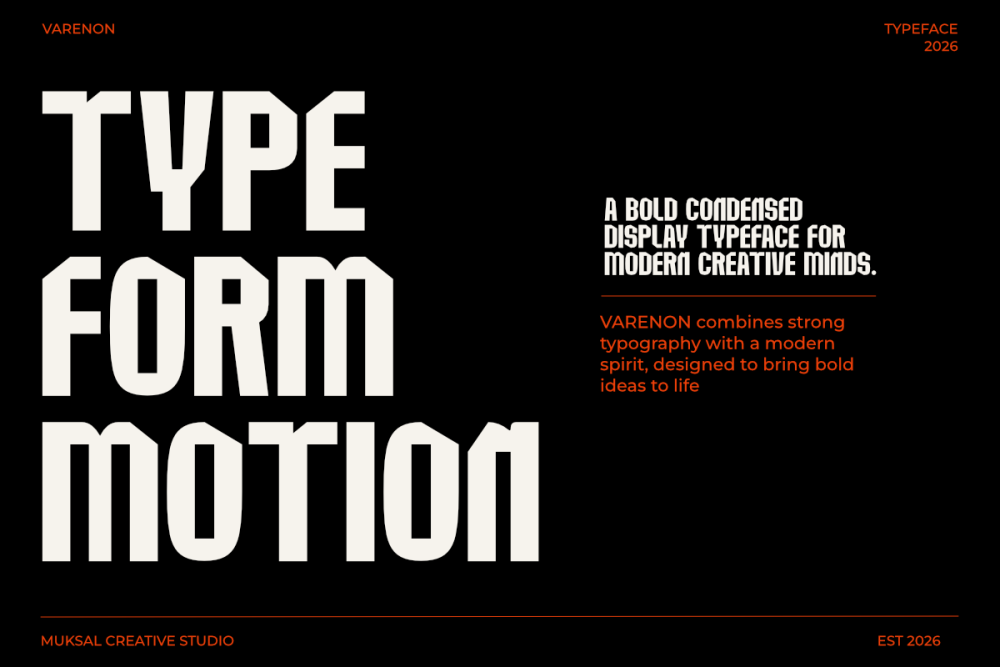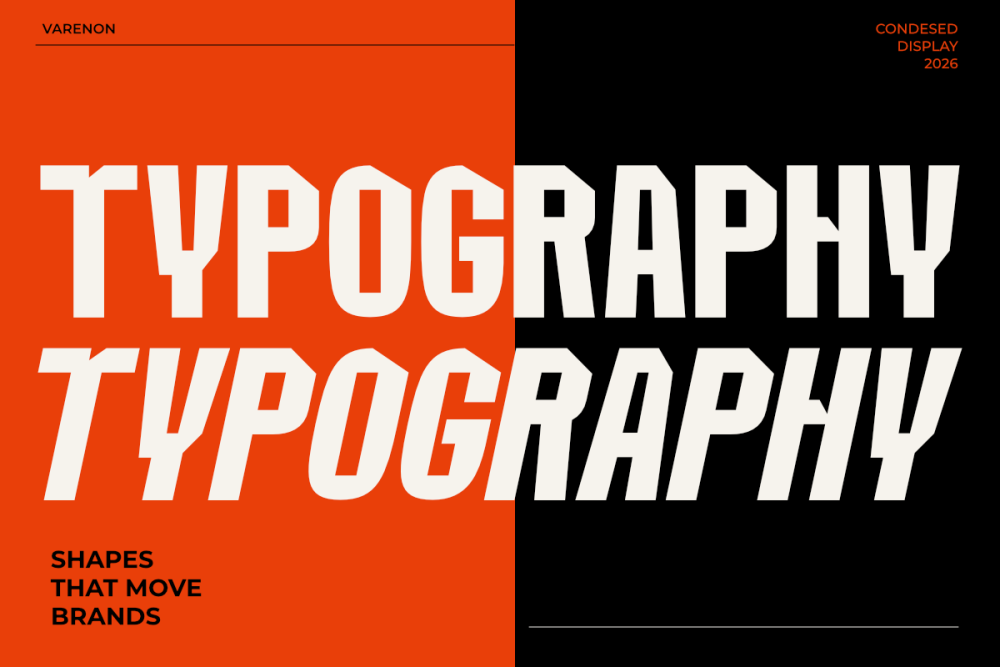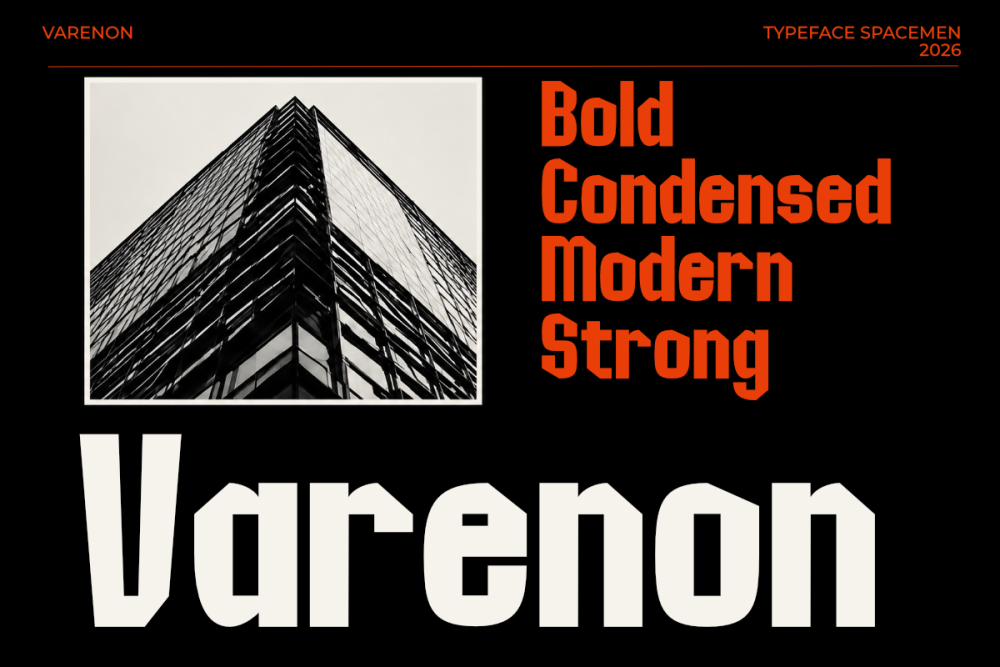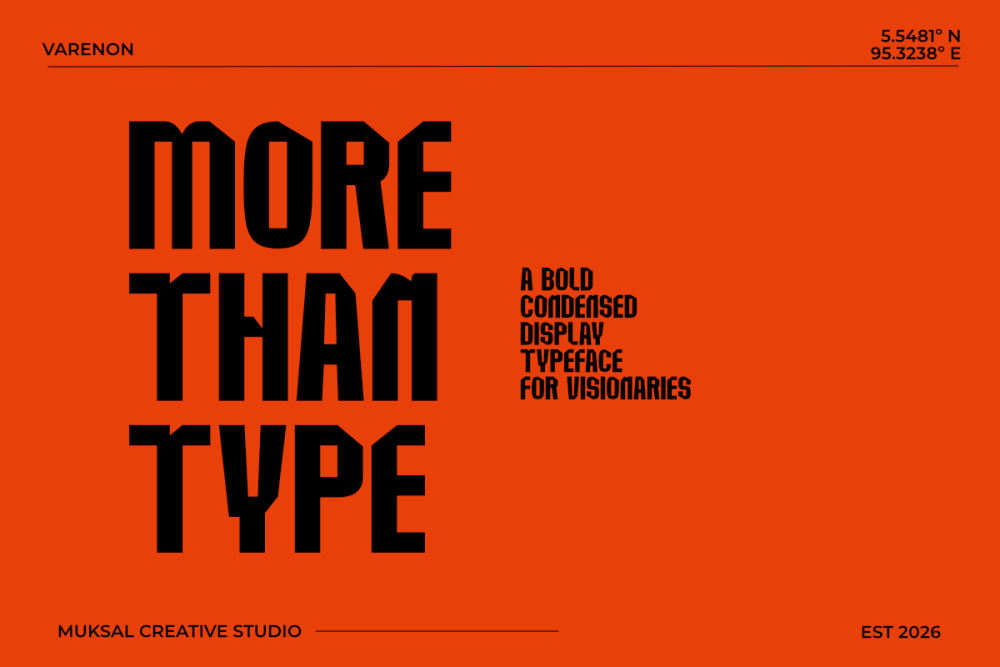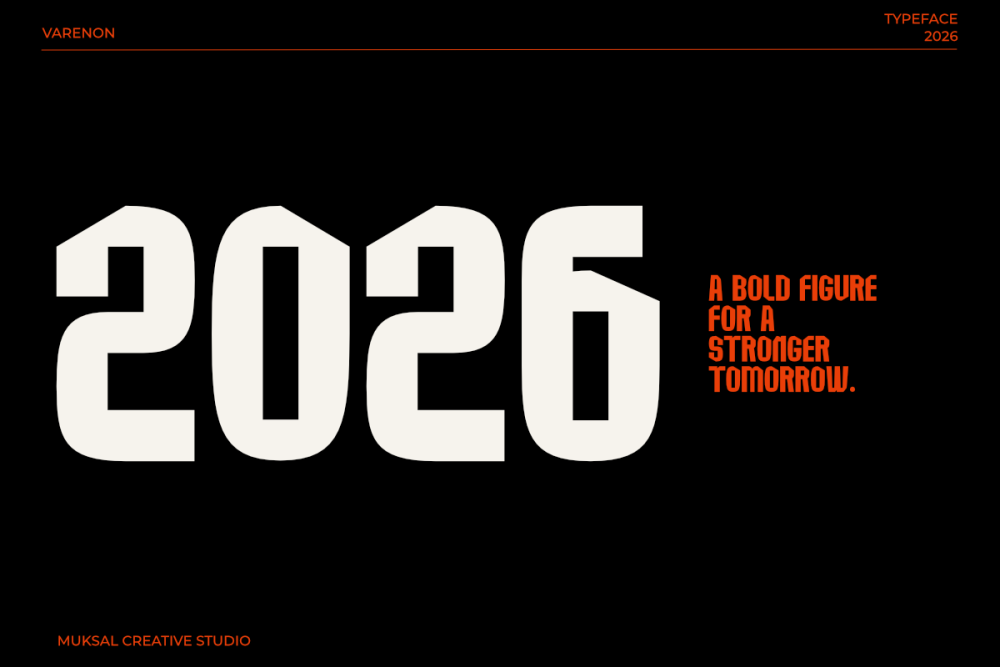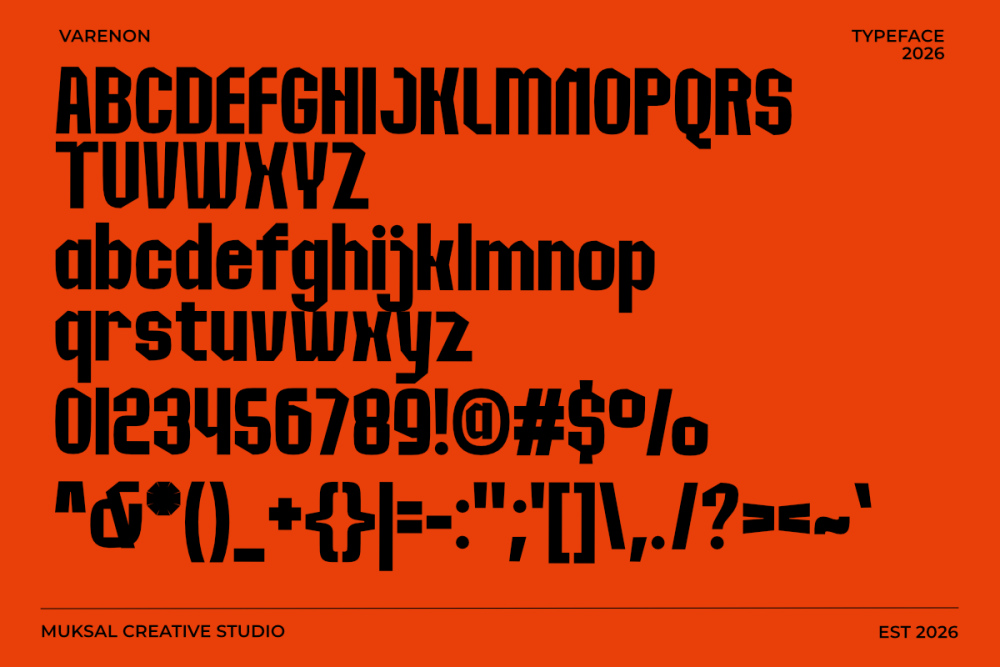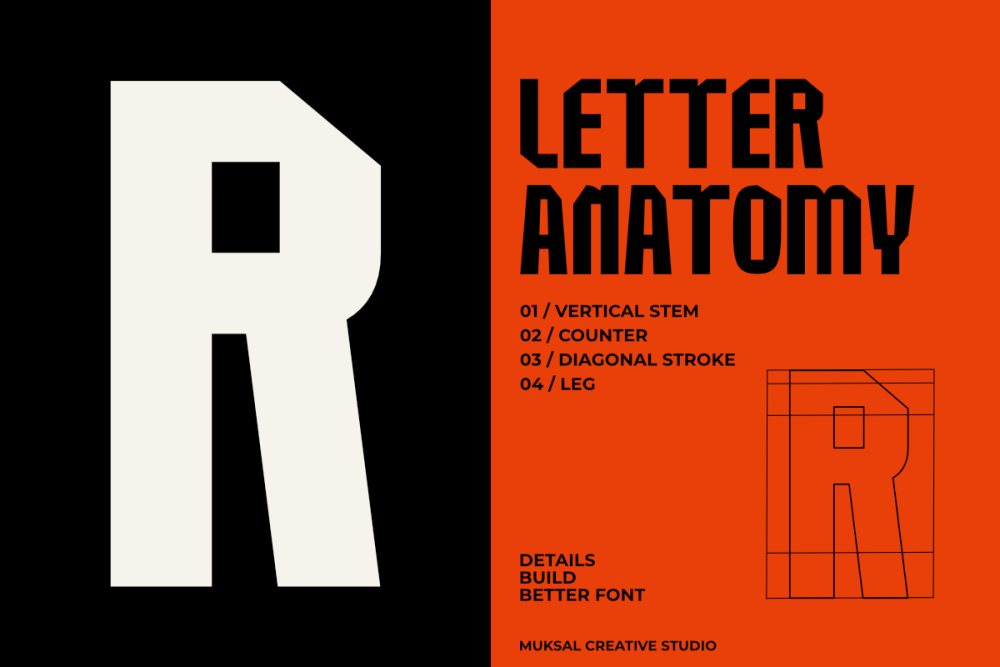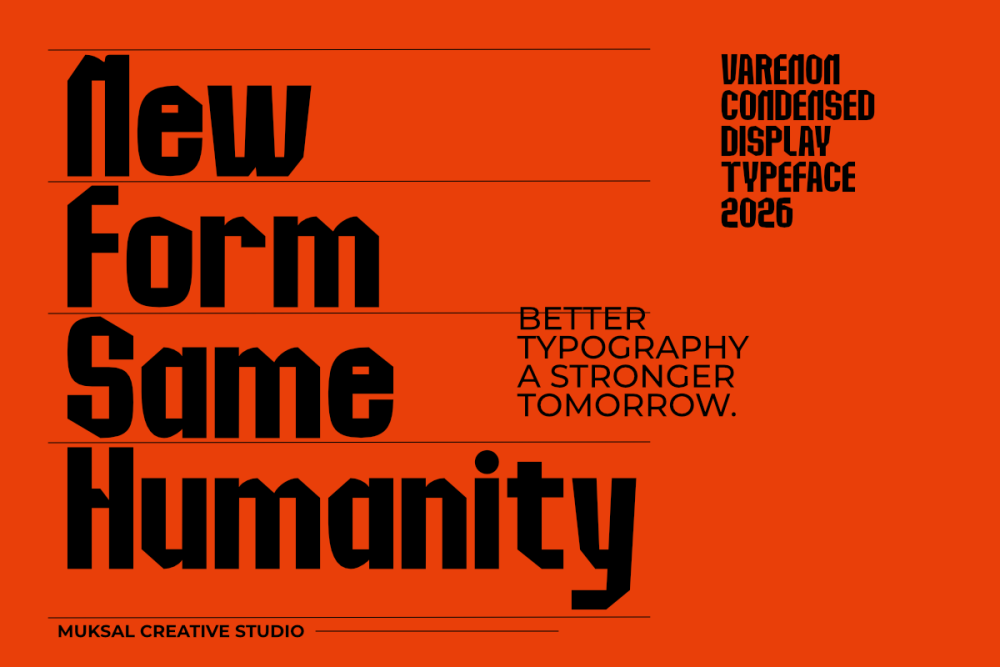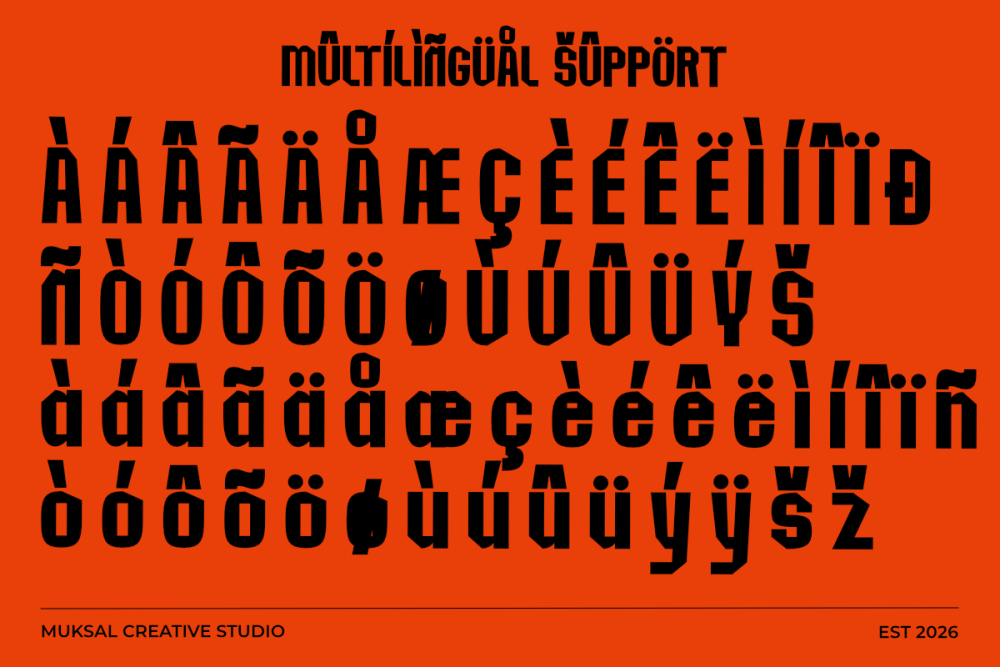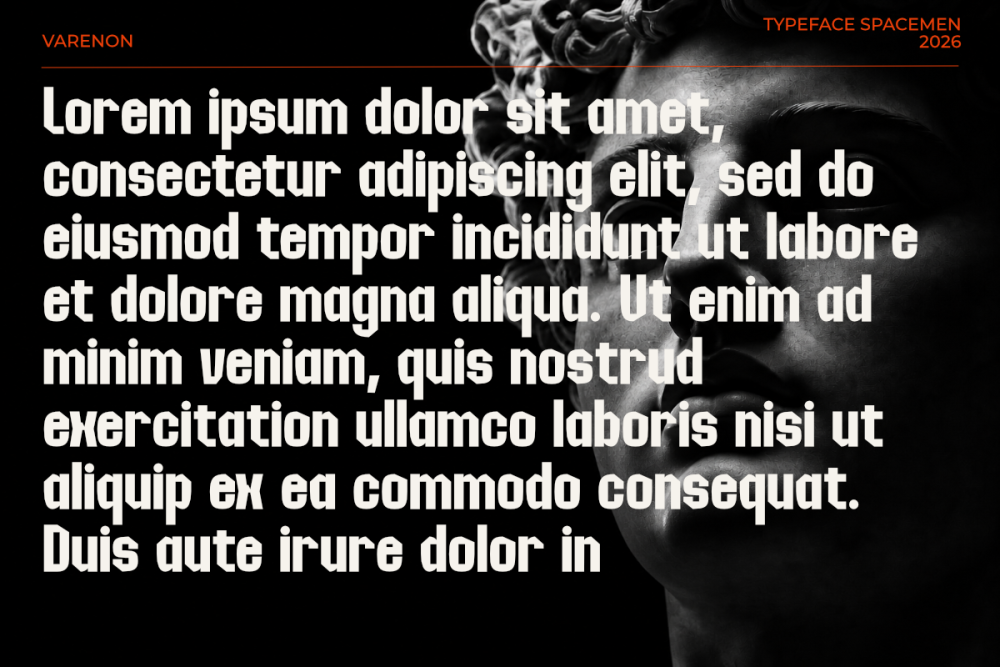
Varenom Regular
Varenom Italic
VARENON is a bold condensed display typeface designed for powerful visual statements and contemporary typography. Featuring a tall, narrow structure, sharp angular details, and strong geometric forms, VARENON creates an instantly recognizable presence across headlines, posters, branding, editorial layouts, and advertising.
Its condensed proportions allow you to create dramatic typography even in limited spaces, while its distinctive cuts and bold construction give every word a strong architectural character.
VARENON is ideal for designers looking to create bold headlines, modern identities, editorial campaigns, posters, titles, packaging, and eye-catching graphic compositions.
Features
• Bold condensed display style
• Strong geometric construction
• Sharp angular details
• High-impact uppercase characters
• Numbers and punctuation
• Multilingual support
• Suitable for headlines and display typography
• Perfect for branding, editorial, posters and advertising
Varenon — Bold Condensed Display Typeface